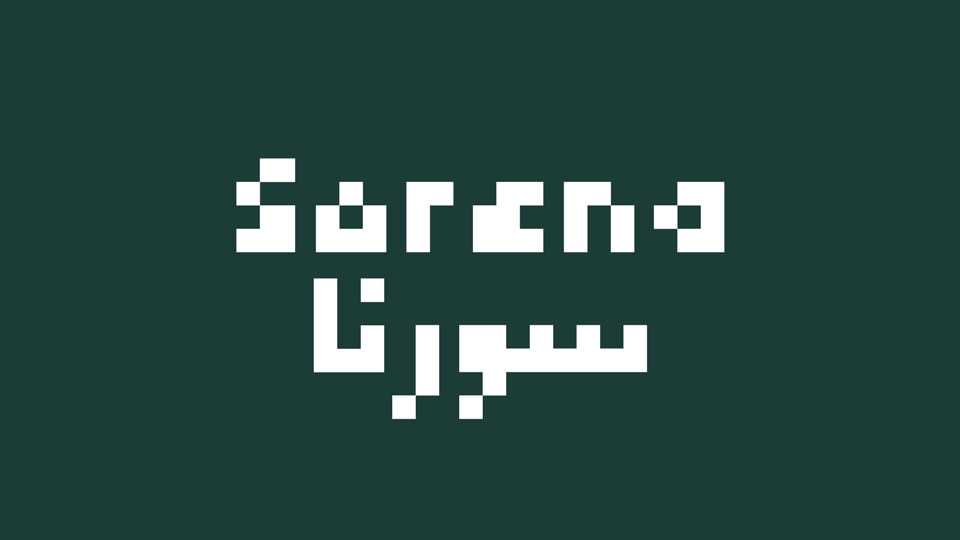
Download Sorena font, an English-Arabic pixel typeface. Although the design conditions of Sorena are very difficult and the details are missed, the result of the work is pleasing and beautiful.
Designer: Mohammad Darvishi